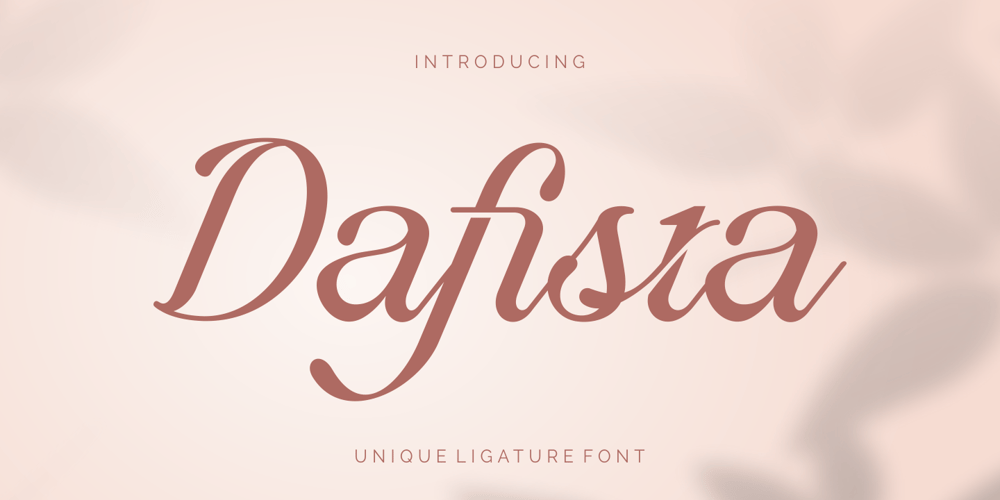
Dafista Font Family was designed by Riyadh Rahman and published by Ergibi Studio. Dafista contains 1 styles and family package options. Dafista is a elegant classic with unique ligatue. Based on our experience as a graphic designer who works for a lot of companies, we often are requested to design a logo in a unique style but with an elegant shape. So, we try to brainstorm and create this font to make the idea is going out. This is perfect for BRANDING and LOGO DESIGN. You will get classy, elegant, and certainly unique logos with this font.Features Regular Version Uppercase & Lowercase Number & Symbol Ligatures Stylistic Alternates Multilingual and PUA Encoded If there is a problem, question, or anything about my fonts, don’t hesitate to ask!Big Thanks ~ Ergibi Studio